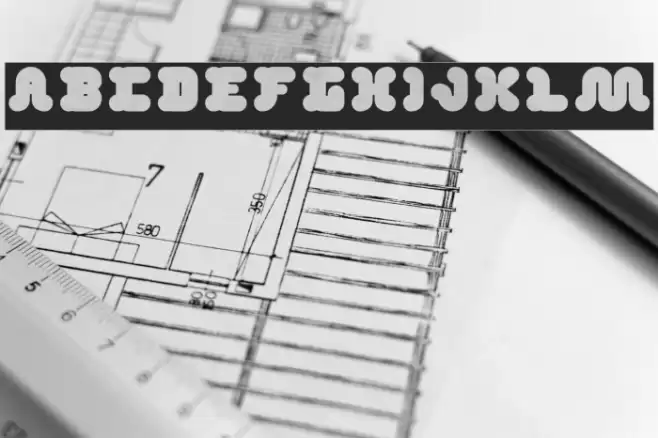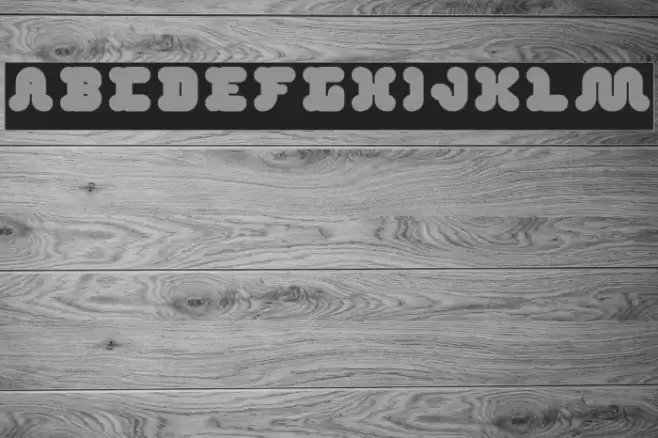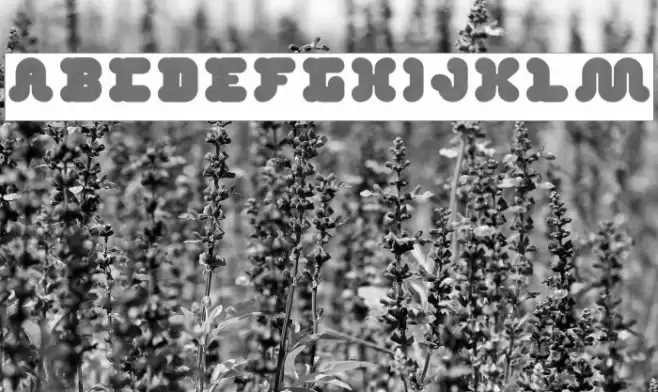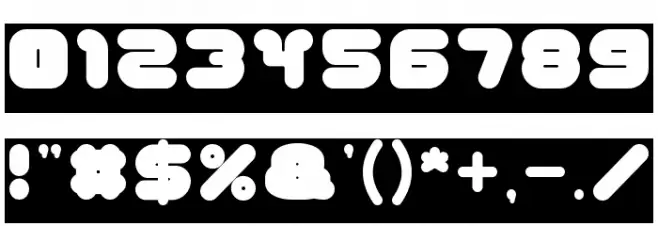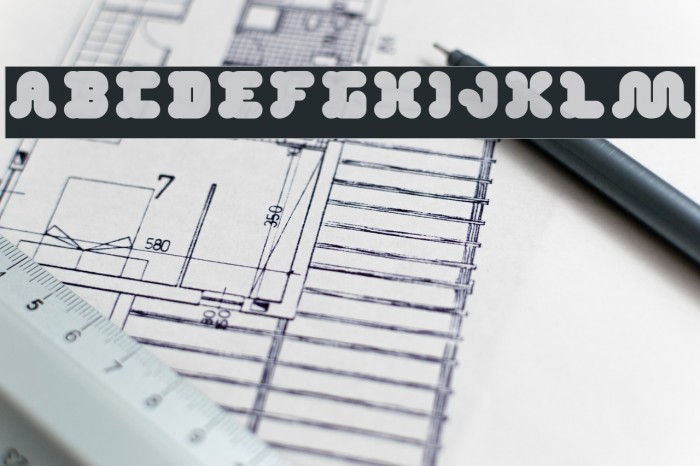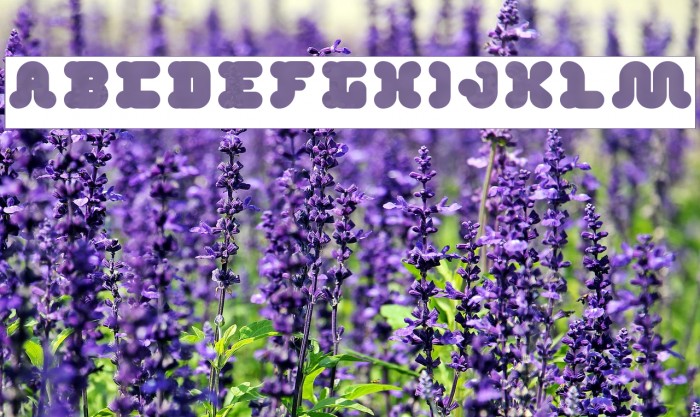
DAY DREAMER-Inverse Font
DAY DREAMER-Inverse Description
This playful and bold font features a bubbly, rounded design that exudes a sense of fun and creativity. Each character is crafted with a thick, uniform stroke that gives it a substantial presence, making it ideal for eye-catching displays. The letters are generously spaced, enhancing readability while maintaining a cohesive look. The font's unique style is characterized by its soft, rounded edges and a slightly whimsical appearance, making it perfect for projects that require a touch of lightheartedness and charm. Its distinctive look is both modern and approachable, suitable for a variety of creative applications.
A playful, bold font with rounded, bubbly characters and a whimsical style from Kids fonts.
- Proposed Projects: Ideal for children's books, playful branding, party invitations, and creative posters.
- Character Spacing: Wide
- Overall Style: Playful, Modern